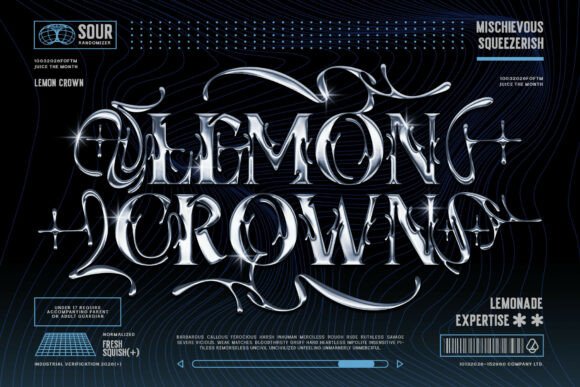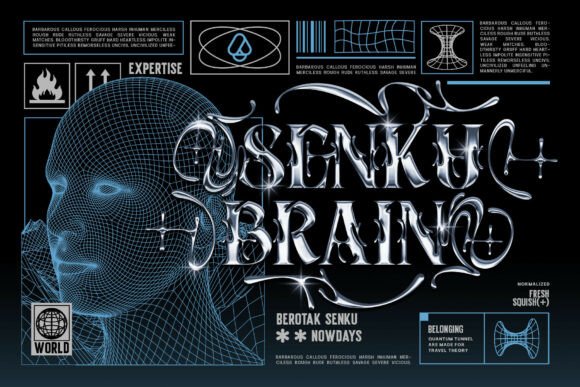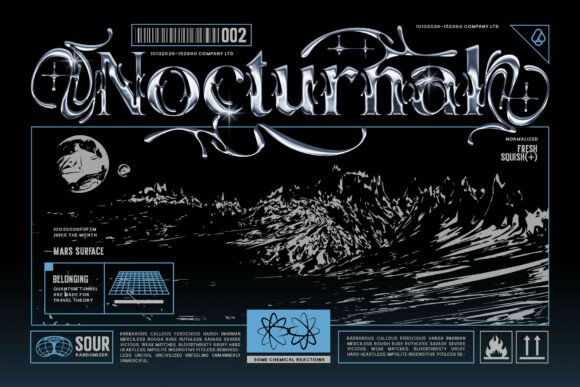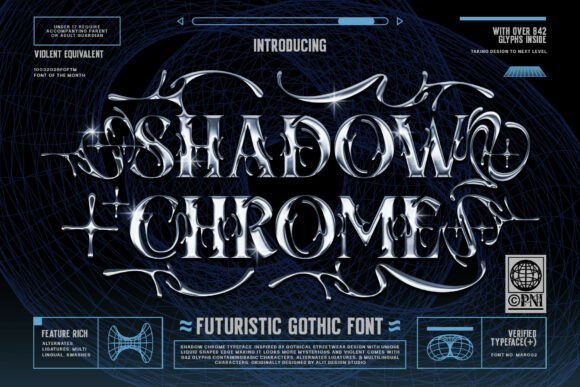
Introduction to Shadow Chrome Font
Unleash a bold fusion of tradition and tomorrow with Shadow Chrome, a high-octane โ€œFuturistic Gothicโ€ font designed for those who want to dominate the visual landscape.
Inspired by the raw energy of gothic streetwear and modern Y2K โ€œcyber-glitchโ€ aesthetics, Shadow Chrome features a unique liquid-shaped edge that gives it a mysterious, sharp, and high-end metallic feel With its aggressive yet sophisticated silhouette, this typeface is the ultimate weapon for designers working on streetwear brands, music posters, futuristic gaming interfaces, and edgy editorial layouts.
Key Features of Shadow Chrome Font